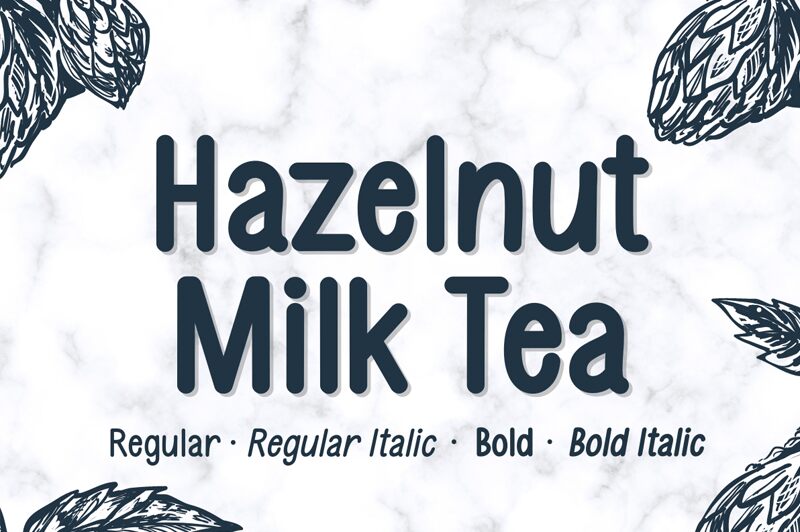
Hazelnut Milk Tea Italic, crafted meticulously by Fikryal Studio, embodies the charming elegance of handwritten style with a distinctive, condensed width. Its refined strokes exude a warm and inviting vibe, making it perfect for adding a personal touch to your designs.
This font thrives in contexts where creativity and individuality are key-think bespoke wedding invitations, artisanal product labels, or whimsical branding projects. The italic slant adds an additional layer of sophistication and fluidity, ensuring that Hazelnut Milk Tea Italic stands out with its graceful presence.
Whether you're looking to create memorable visual identities or captivating artistic works, Hazelnut Milk Tea Italic offers the finesse and flair required to leave a lasting impression.